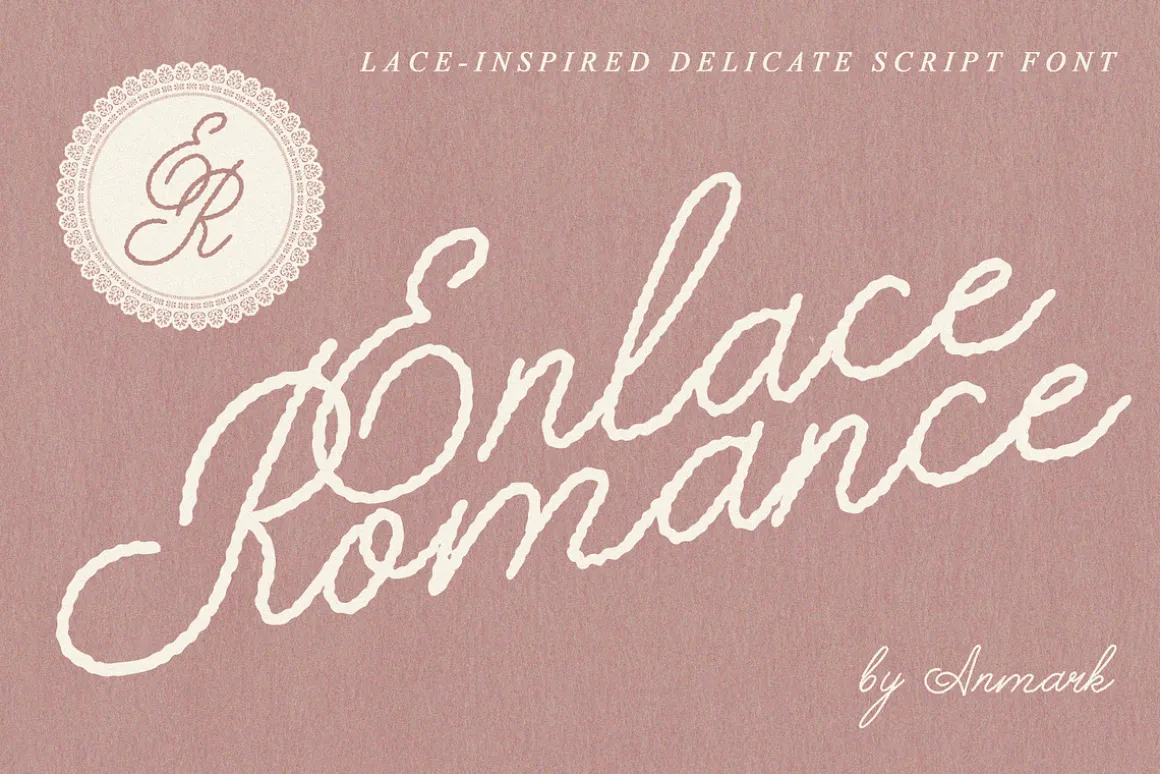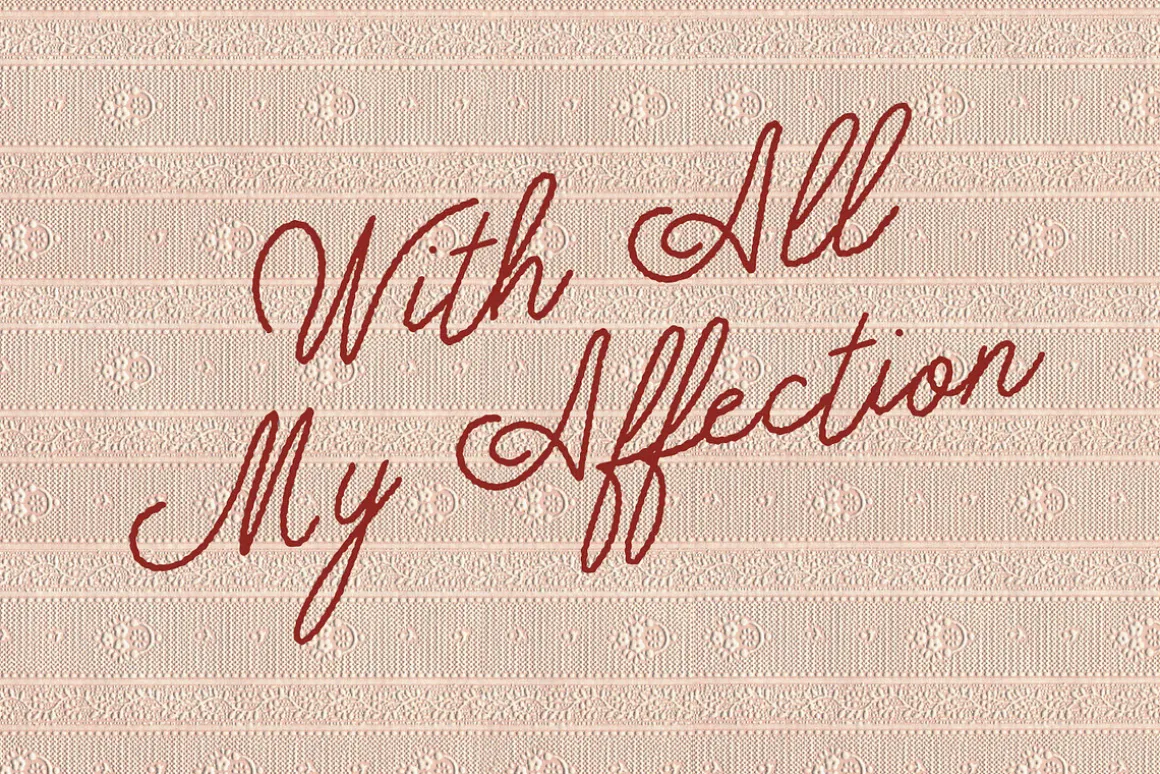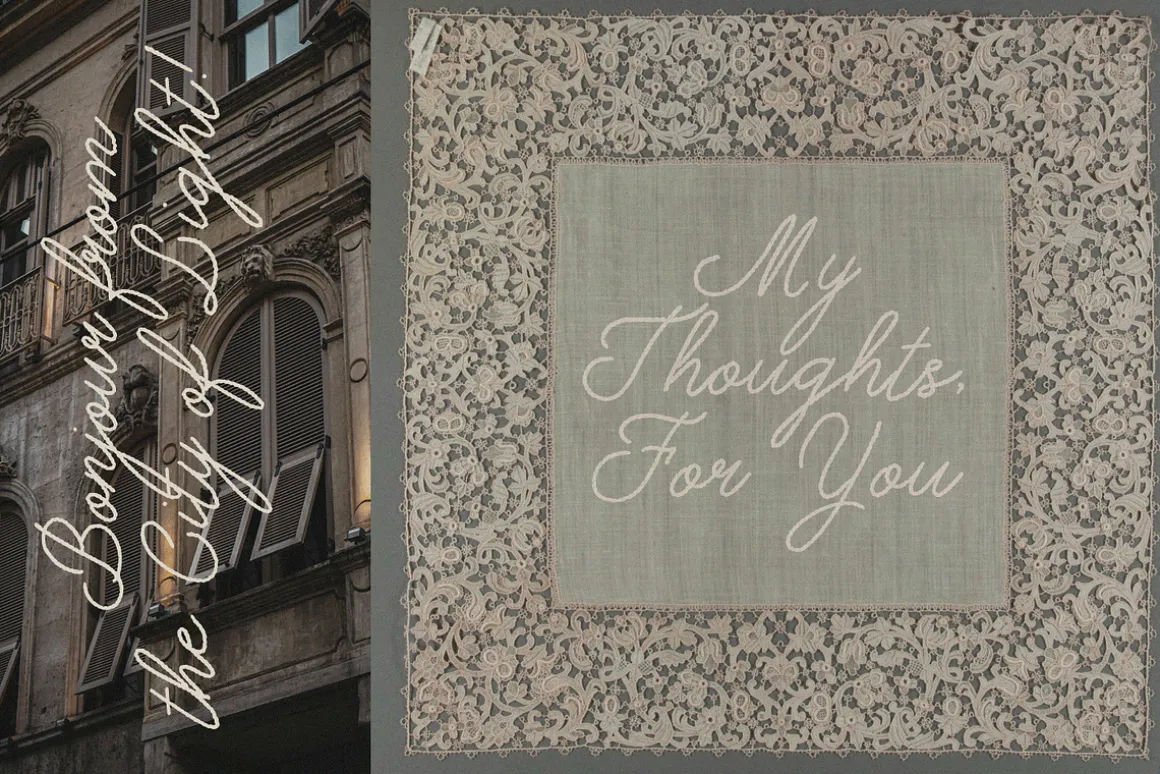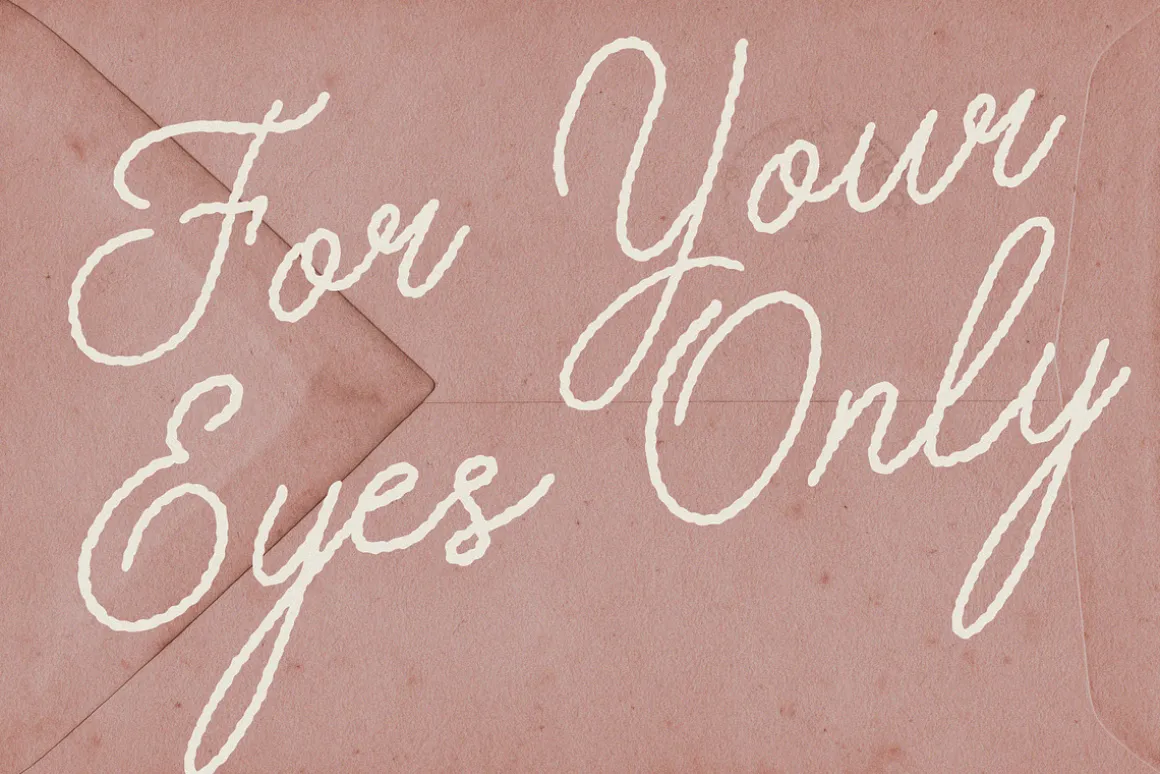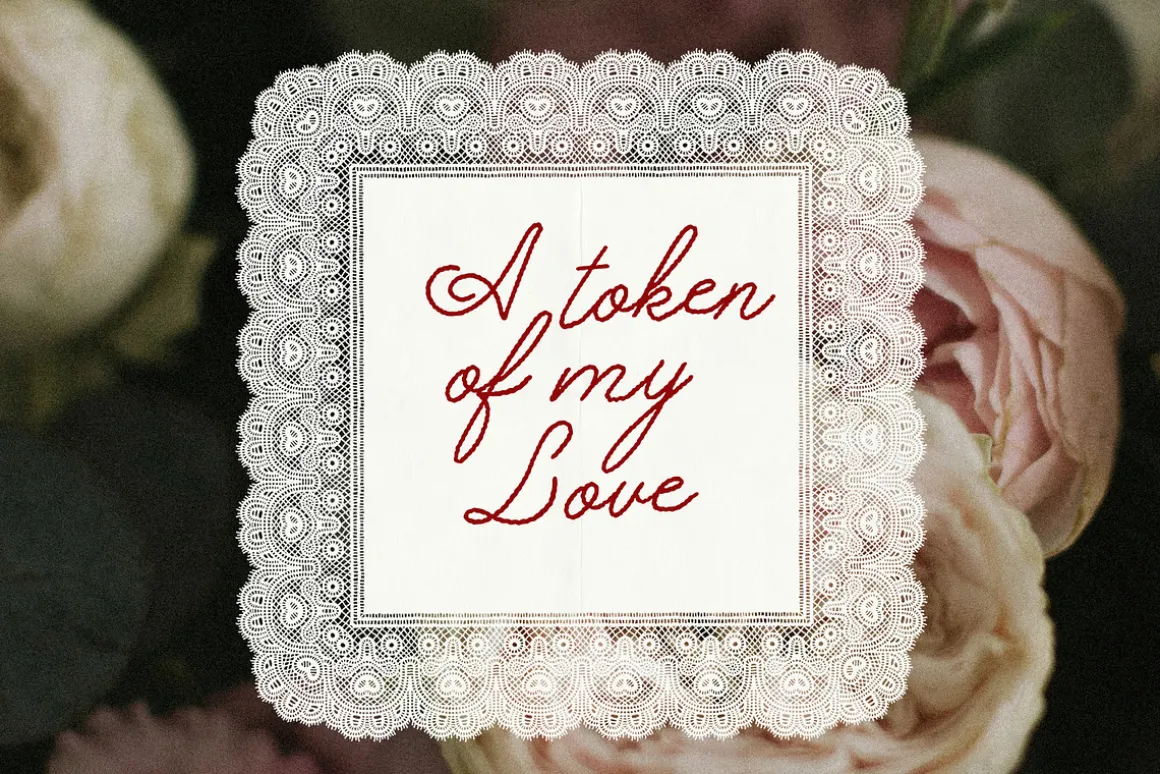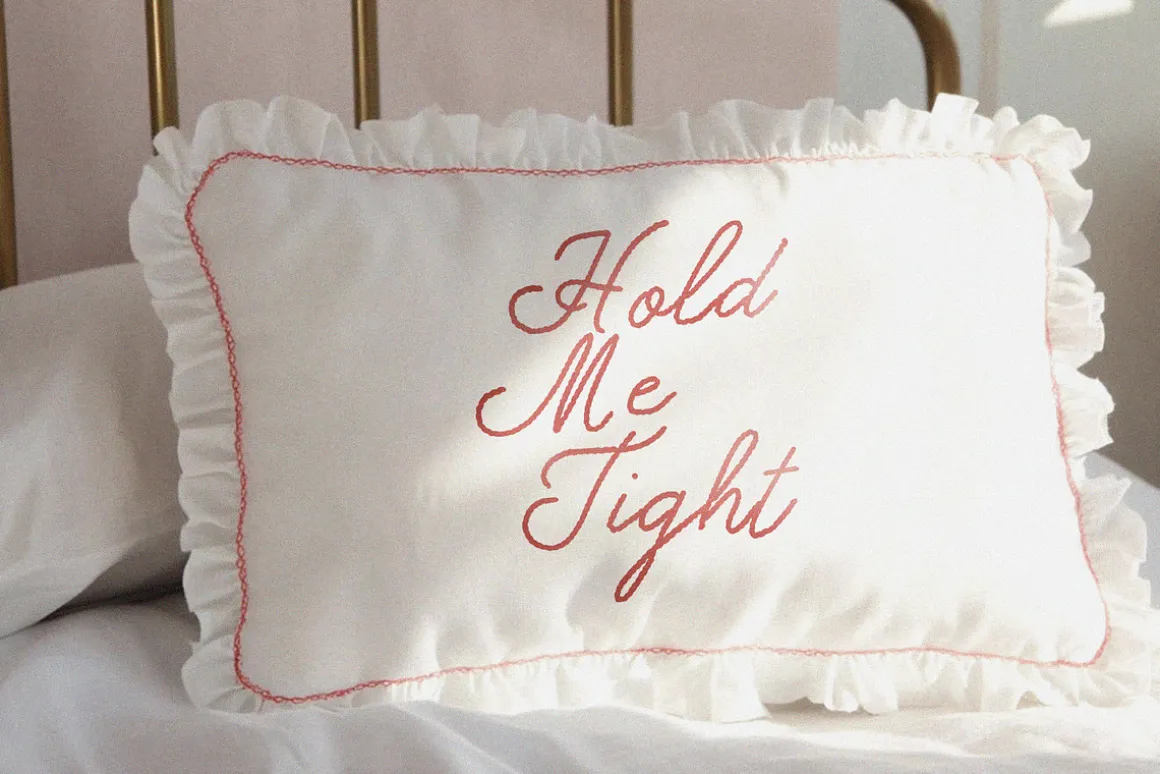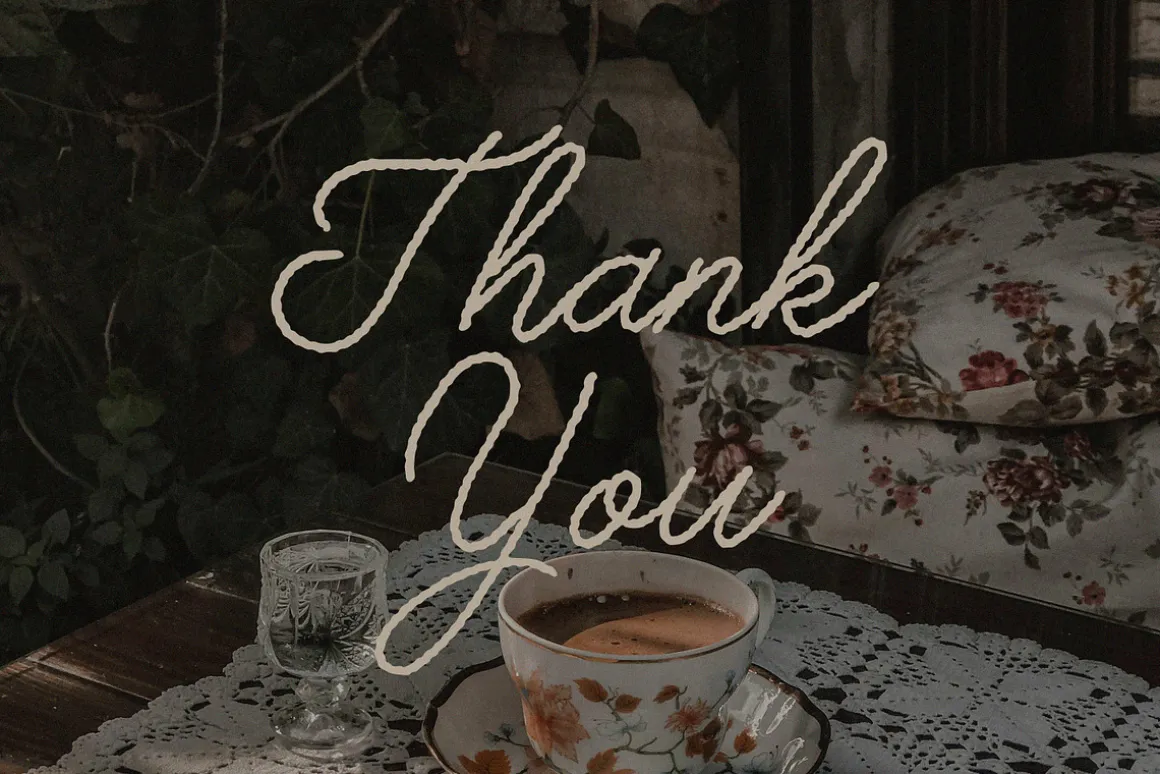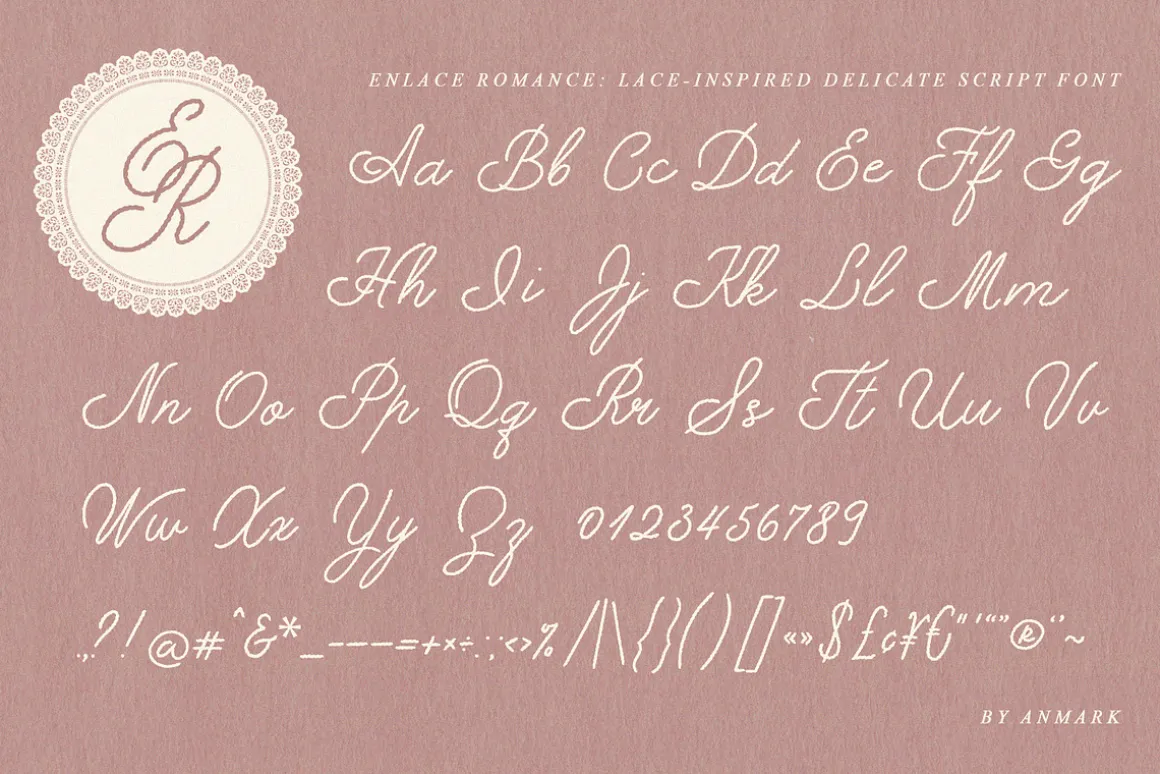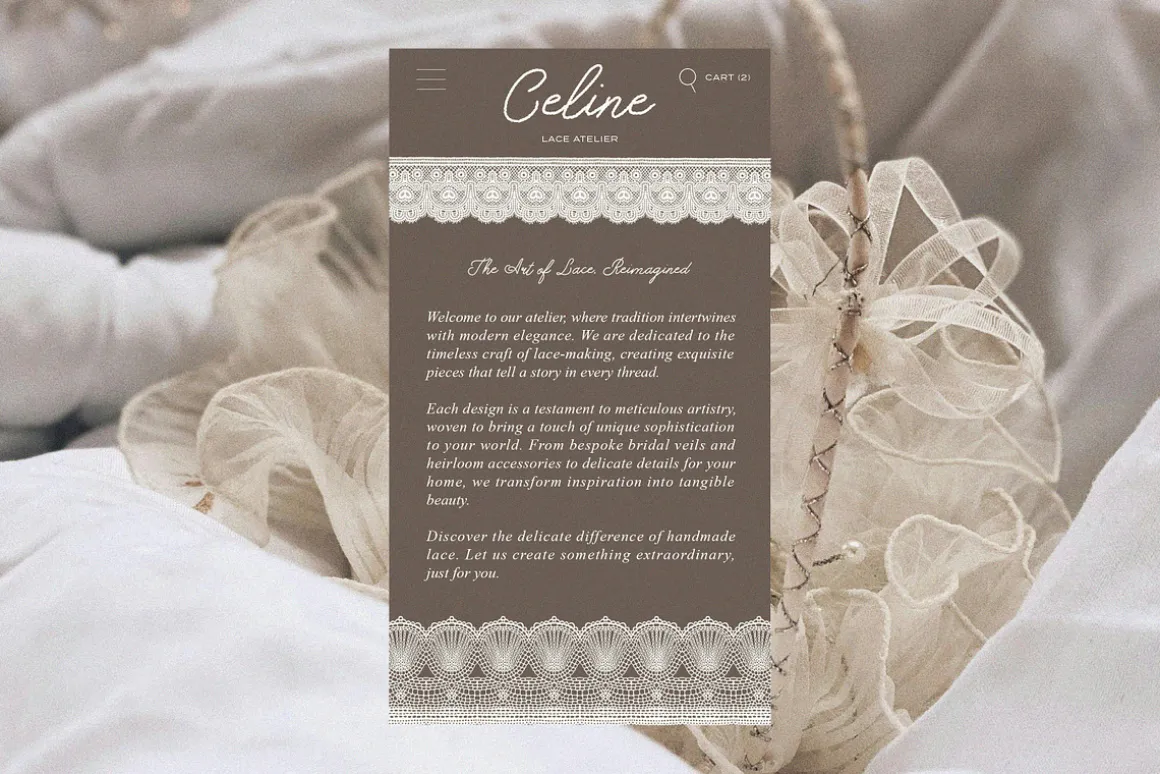
Enlace Romance: A Delicate Script Font
Enlace Romance is a romantic vintage script font, meticulously crafted to flow like an elegant lace ribbon. Its graceful letterforms feature delicate connections that emulate woven threadwork, bringing the soft, intricate beauty of handmade lace to your designs. Perfect for projects that demand timeless charm and sophistication.
This exquisite script works beautifully for:
Wedding invitations & stationery
Wedding monograms & crests
Save the Date cards & bridal shower designs
Elegant logos & boutique branding
Packaging & product labels
Social media graphics & quotes
Vintage-inspired editorial projects
Enlace Romance adds a touch of woven delicacy and refined elegance, making it the ideal choice for infusing your creative work with a sense of timeless romance.